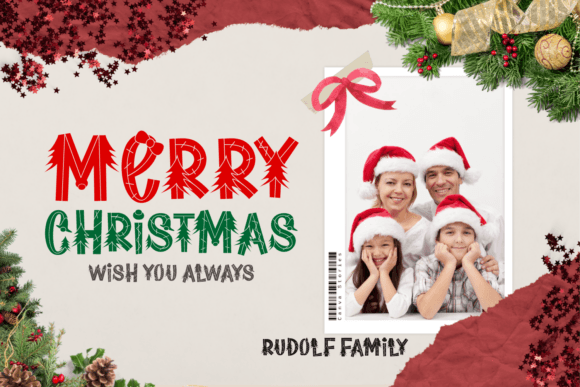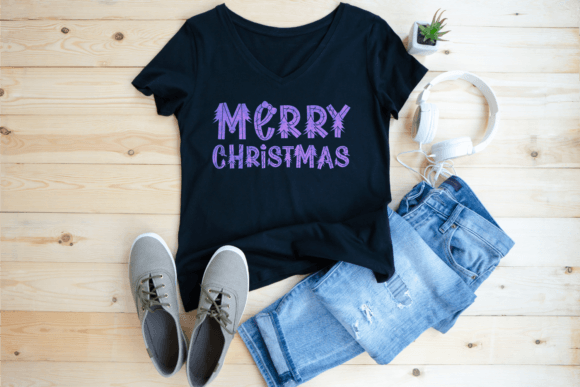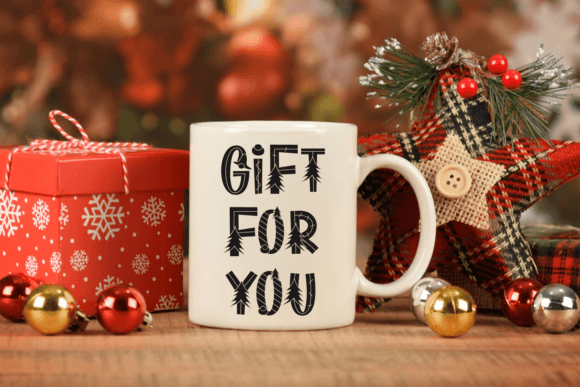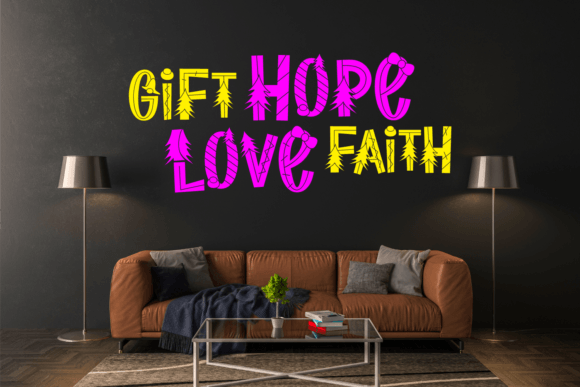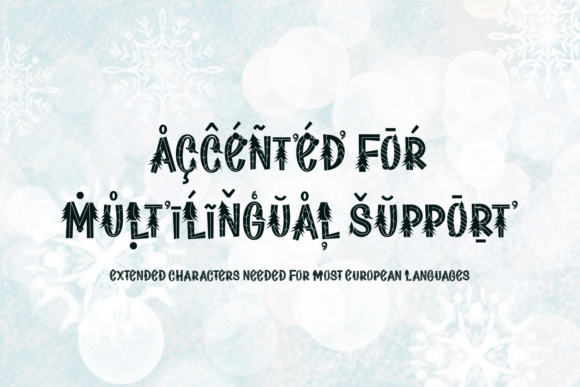
Deck the Halls with a Festive Twist
As the holiday season approaches, designers and crafty individuals alike often find themselves searching for the perfect font to capture the magic of Christmas. It’s that moment when you’re scrolling through design inspiration, and suddenly, a font catches your eye – its quirky charm and festive flair making you exclaim, “Ah, this is the one!” For many, that font is the Christmas Ding Donk Font, featuring letters shaped like Christmas trees.
This playful, decorative font is a game-changer for holiday designs. Whether you’re creating cards, decorations, or cheerful graphics, Christmas Ding Donk Font adds a touch of whimsy and fun. As a designer, having access to such a versatile and unique font can be a valuable asset, allowing you to bring your creative vision to life in a way that’s both memorable and delightful.
Christmas Ding Donk Font Key Features
- Unique Characteristics: The Christmas Ding Donk Font features a distinctive, hand-drawn design with bold lines and playful flourishes, making it perfect for adding a touch of whimsy to holiday-themed projects.
Review of Christmas Ding Donk Font
Overall, I think the Christmas Ding Donk Font is a fun and quirky addition to any holiday design project. ✨ The font’s playful, hand-drawn style is sure to add a touch of whimsy and personality to your designs.
- The font’s irregular shape and texture add a lot of visual interest and depth.
- The characters are well-designed and easy to read, even at smaller font sizes.
- The font is fully scalable, so it looks great on both digital and print materials.
- The font’s unconventional style may not be suitable for all types of projects or audiences.
- The font may be difficult to use in situations where a more formal or traditional font is required.
- The font’s design is quite bold and eye-catching, which may not be suitable for all design contexts.
Overall, I think the Christmas Ding Donk Font is a great choice for holiday-themed designs, but it may not be the best fit for more formal or traditional projects.
For a festive look, pair the font with bold, bright colors and decorative elements.
For a professional look, use the font in combination with other festive graphics and textures.
For a fun and playful look, use the font in headings and titles.
For the most festive look, pair the Christmas Ding Donk Font with other holiday-themed graphics and elements.
Use the font in greeting cards, invitations, and party decorations.
Pair the font with bold, bright colors and decorative elements for a fun and playful look.